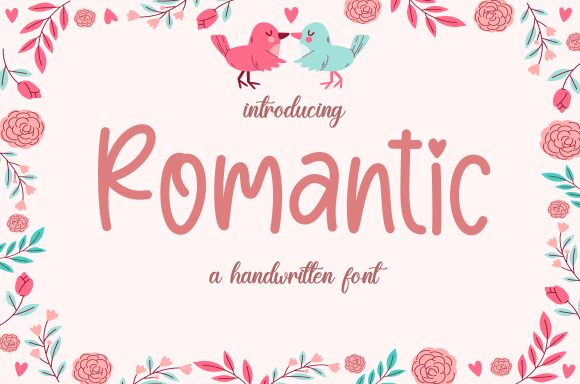
Romantic is a beautifully crafted handwritten font by Nirmala Creative, perfect for projects that require a touch of elegance and sophistication. Its semi-light weight and semi-condensed width make it ideal for use in titles, headings, and body text alike. Whether you're designing wedding invitations, creating a brand identity for a luxury product, or adding an extra layer of charm to your blog posts or social media graphics - Romantic will elevate your project to the next level. With its flowing curves and graceful strokes, this font is sure to capture hearts wherever it's used.